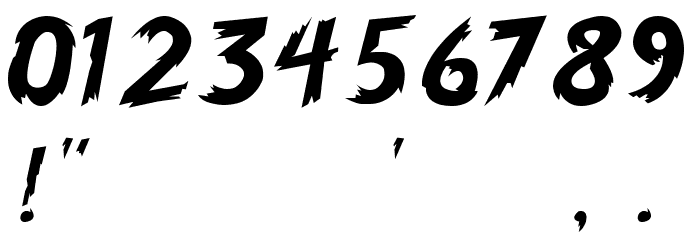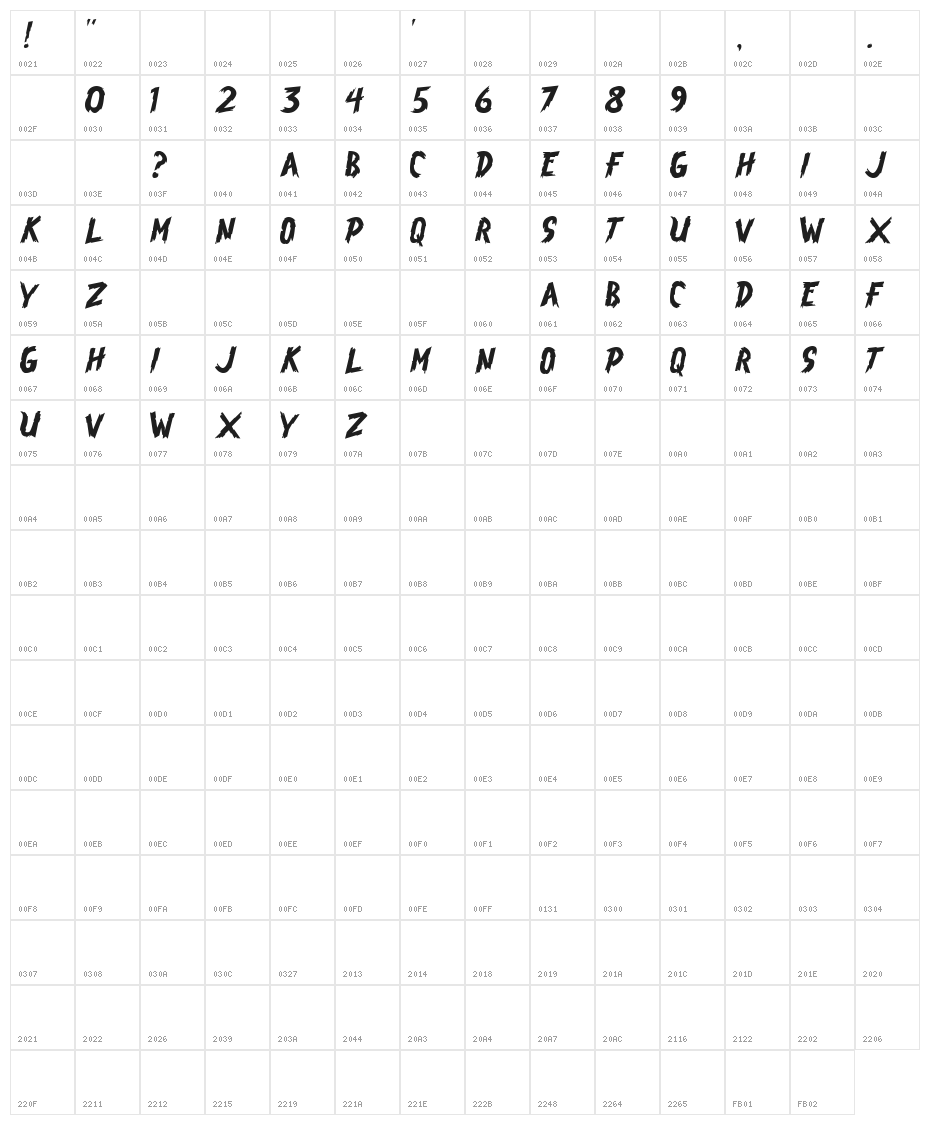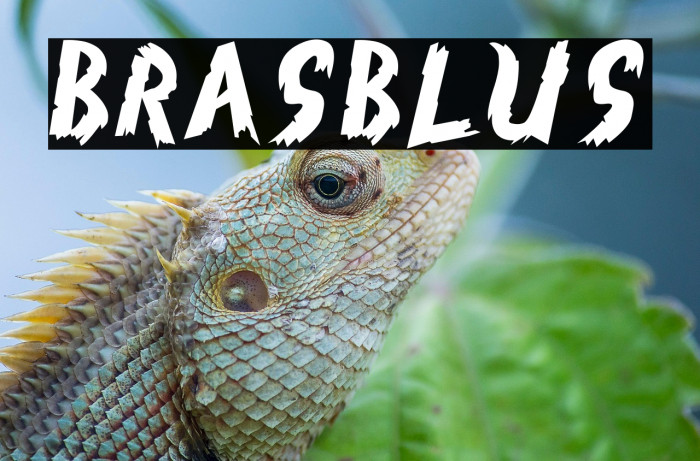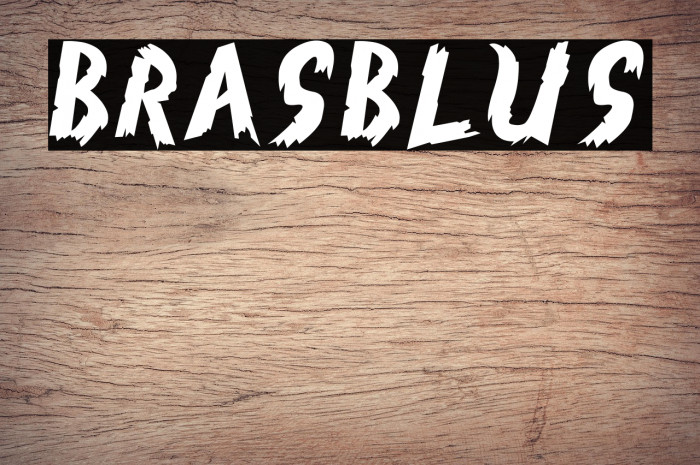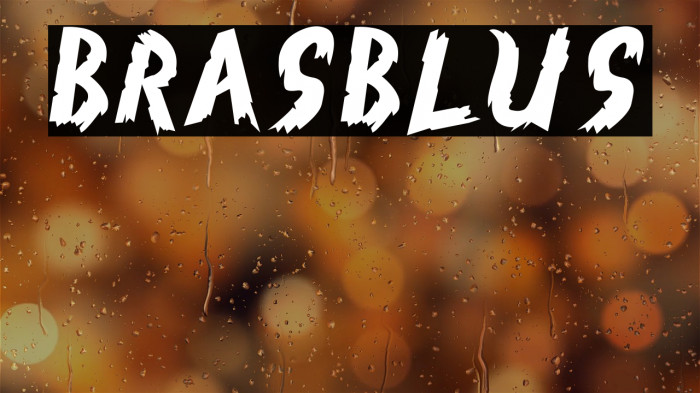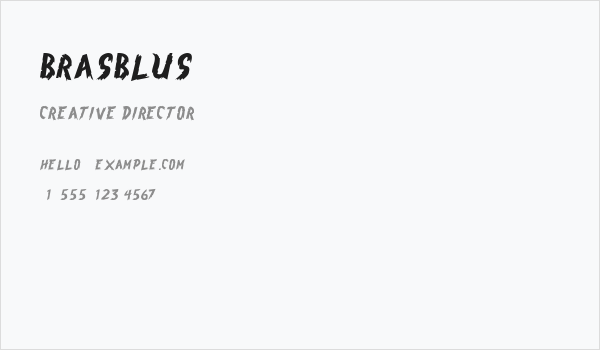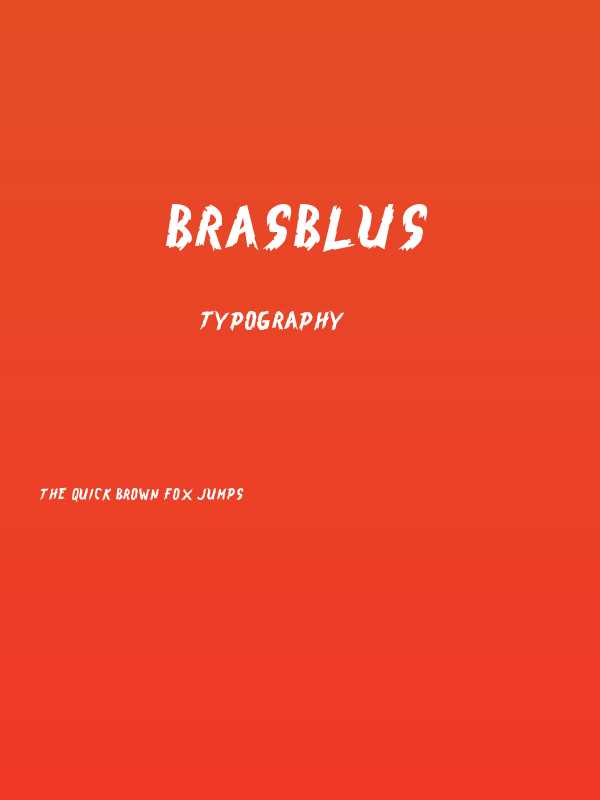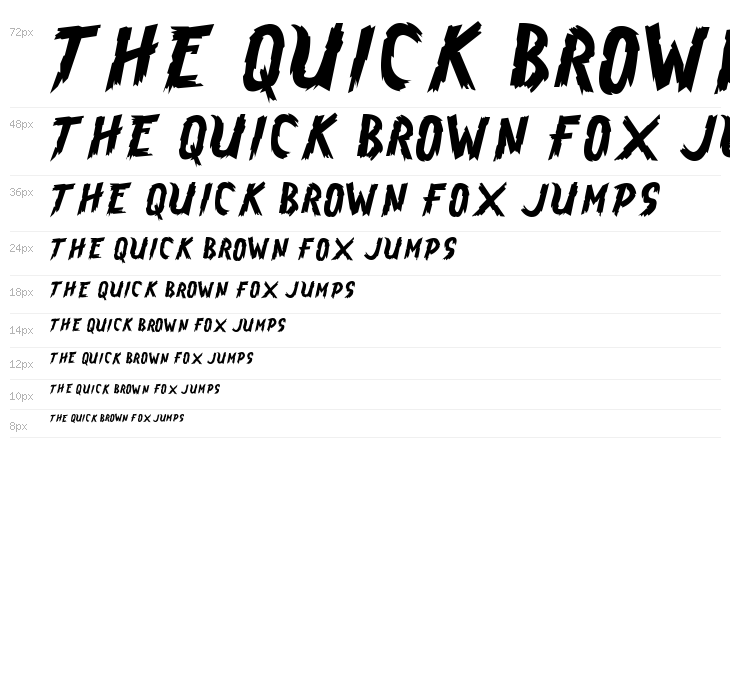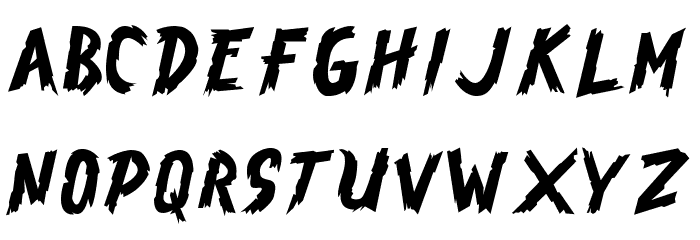
Brasblus Font
Brasblus Description
This font features a bold and dynamic style with sharp, jagged edges that give it a sense of movement and energy. The characters are designed with a brush-like texture, creating a sense of urgency and intensity. The uppercase and lowercase letters maintain a consistent style, with exaggerated angles and pointed ends that make each character stand out. The numbers and special characters follow the same design principles, ensuring a cohesive look across all elements. This font is ideal for projects that require a dramatic and eye-catching appearance.
Proposed ProjectsIdeal for horror-themed designs, movie posters, video game titles, and edgy branding projects.